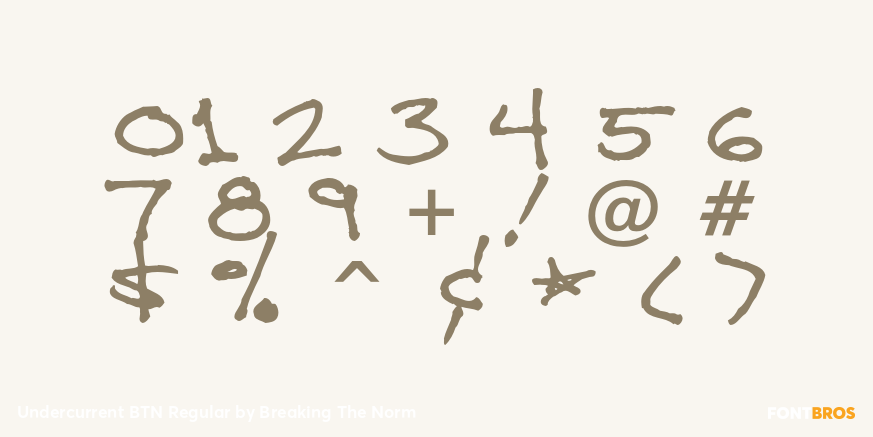
Undercurrent BTN Regular
Font Style by Breaking The Norm
Undercurrent BTN is a rough textured handwritten font with a casual, expressive personality. Its uneven strokes and worn handmade character give it a natural, slightly gritty feel that works well for posters, notes, packaging, album-style graphics, craft projects, blog graphics, and informal branding. Undercurrent BTN brings a human, unpolished voice to designs that need something personal, relaxed, and a little raw without losing readability.